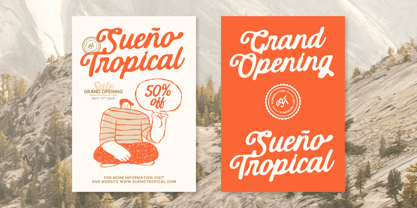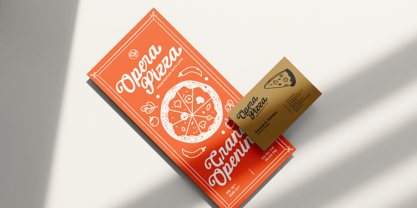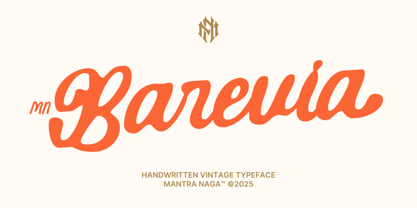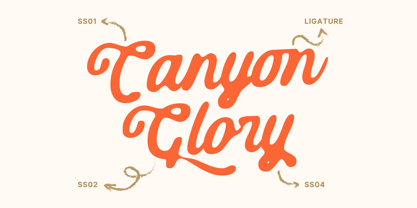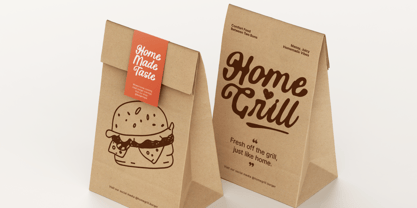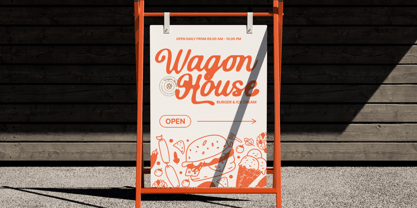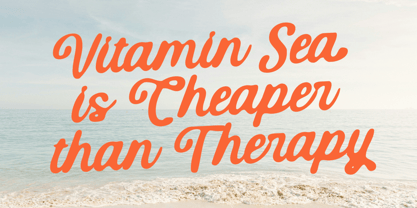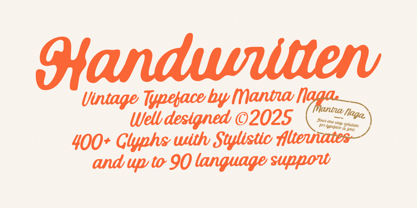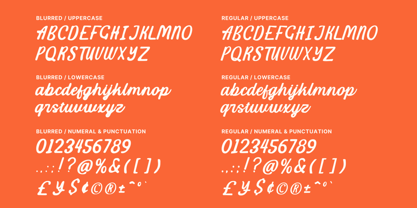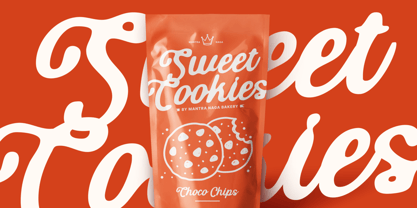
MN Barevia
by Mantra Naga Studio
The MN Barevia Font Family was designed by Fredo Eka Pratama and published by Mantra Naga Studio. MN Barevia contains 2 styles and family package options.
MN Barevia is a handwritten vintage-style font designed to capture the raw beauty of natural penmanship. Its imperfect strokes and blurred edges give it an authentic, organic feel—just like real handwriting on aged paper.
This font comes in two distinct styles:
- Blurred – with soft, rough edges for a worn, rustic effect.
- Regular – cleaner and more solid, while still keeping the charm of hand-drawn letters.
Perfect for vintage branding, nostalgic posters, personal notes, wedding invitations, or any project that calls for a touch of handcrafted warmth. With its natural imperfections, MN Barevia brings character and storytelling into your designs.